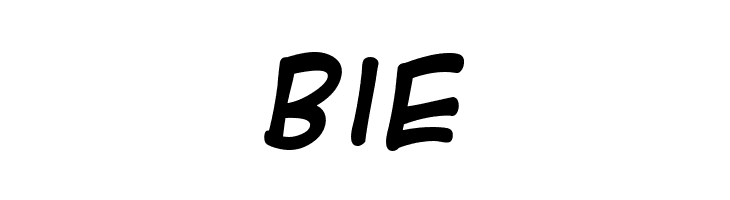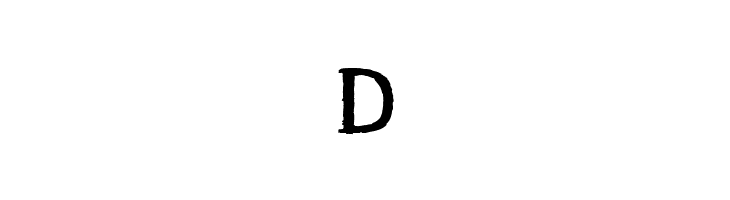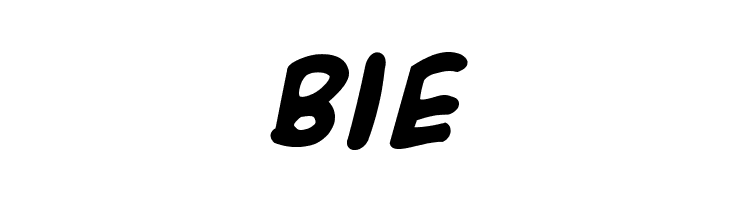
A bold, italic serif font with a classic yet modern appeal.
A bold, slightly distressed serif font with a hand-crafted feel.
A bold, futuristic font with geometric, rounded letterforms.
A modern, bold, and italic font with a sleek and dynamic design.
A bold, playful font with rounded, slanted letterforms and a handwritten feel.
A bold, italicized typeface with a modern, speedy aesthetic.
A bold, monospaced sans-serif font ideal for coding and headlines.